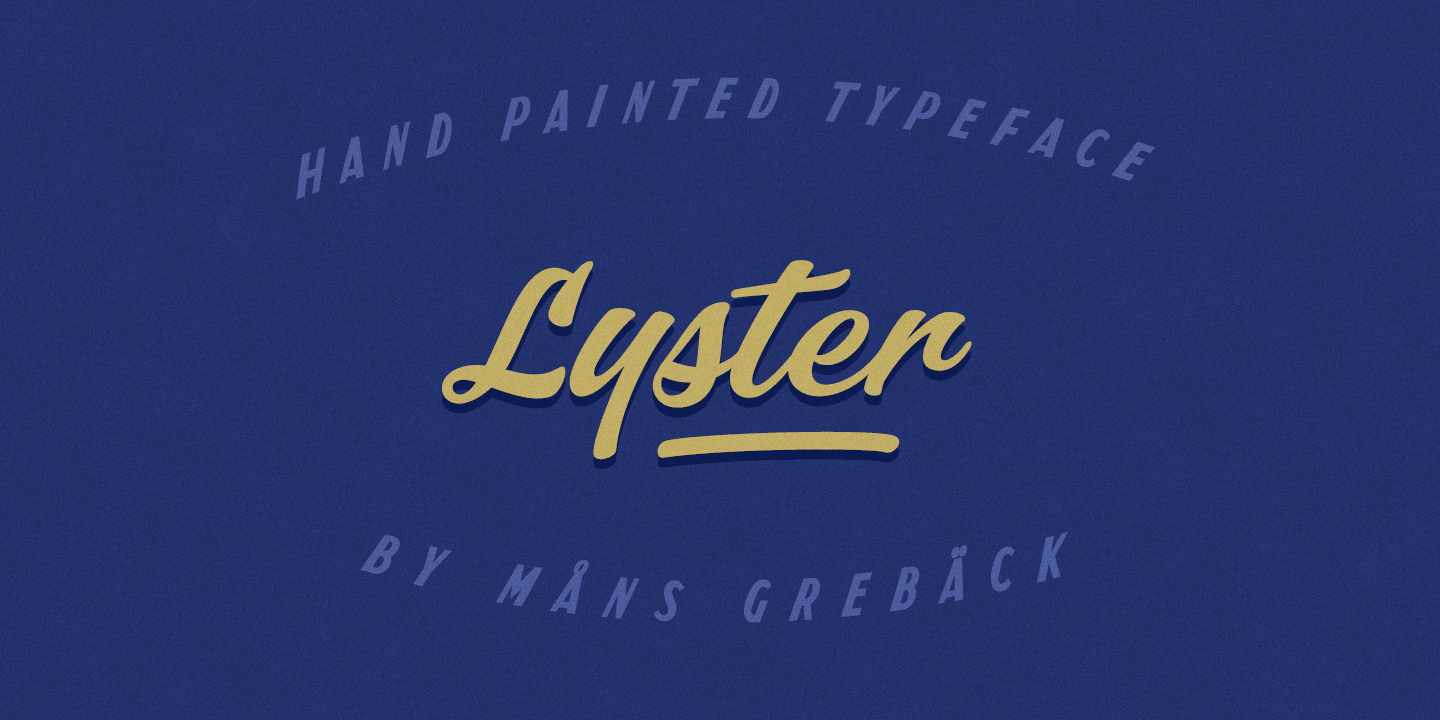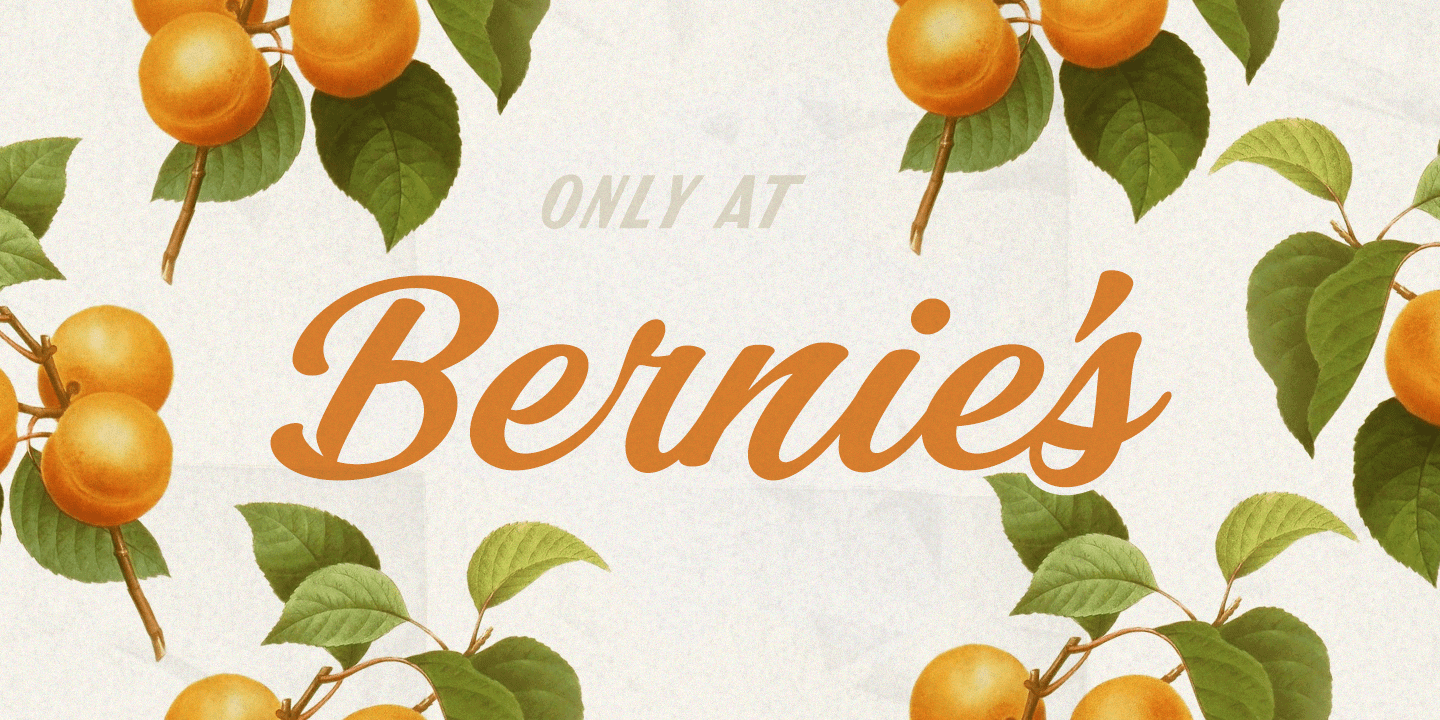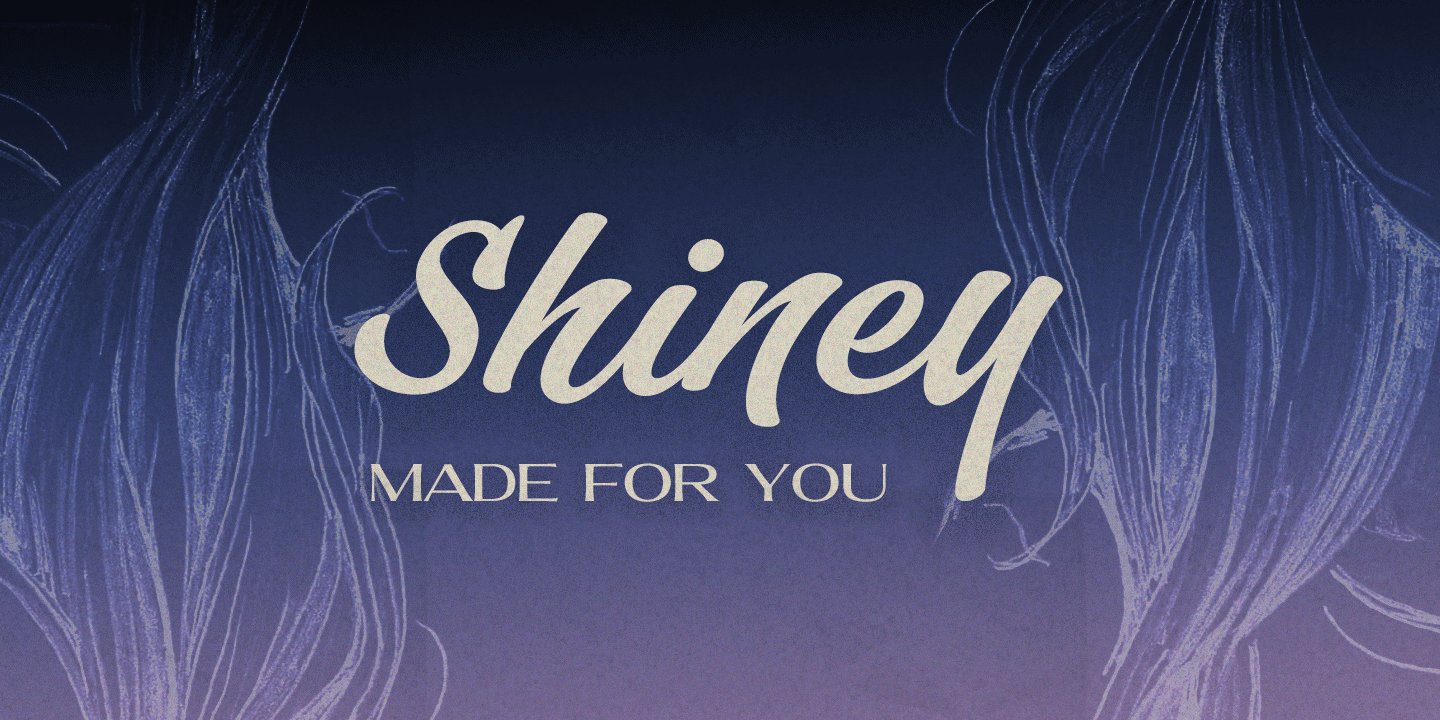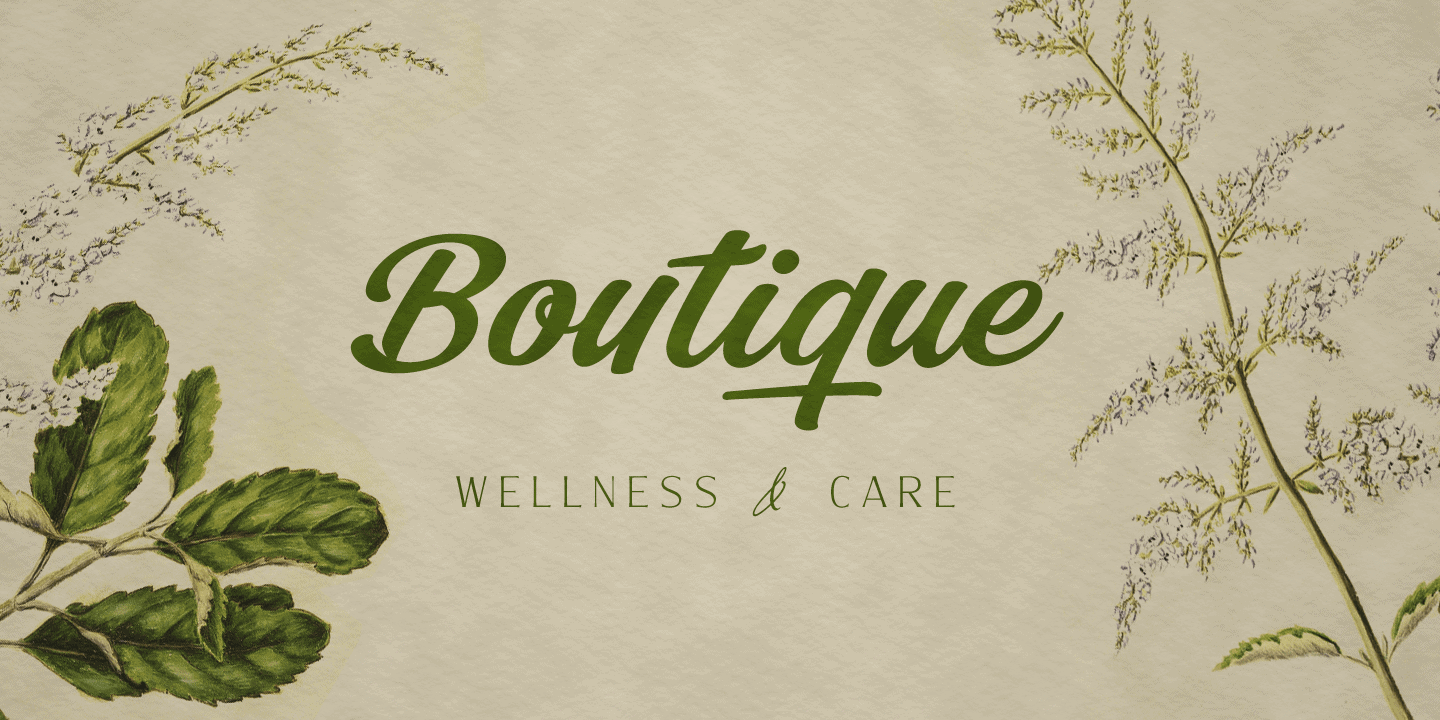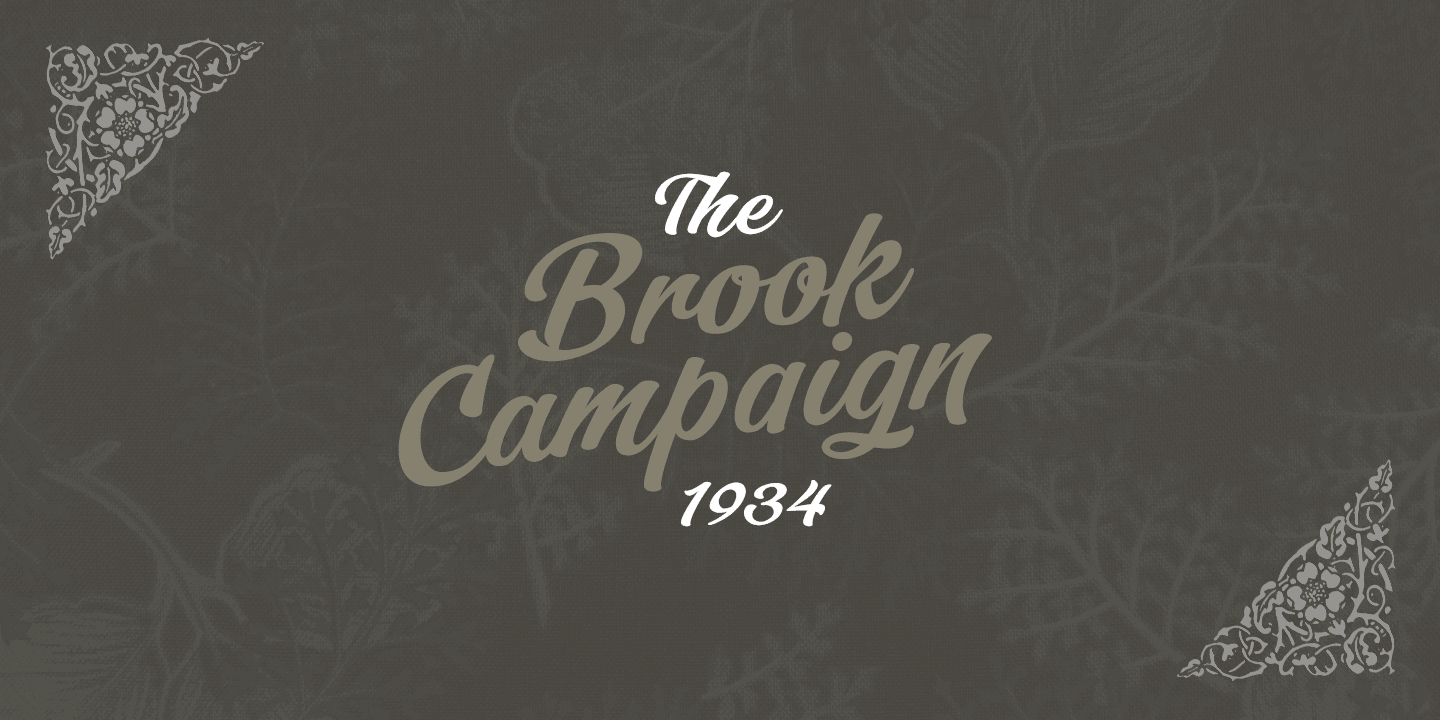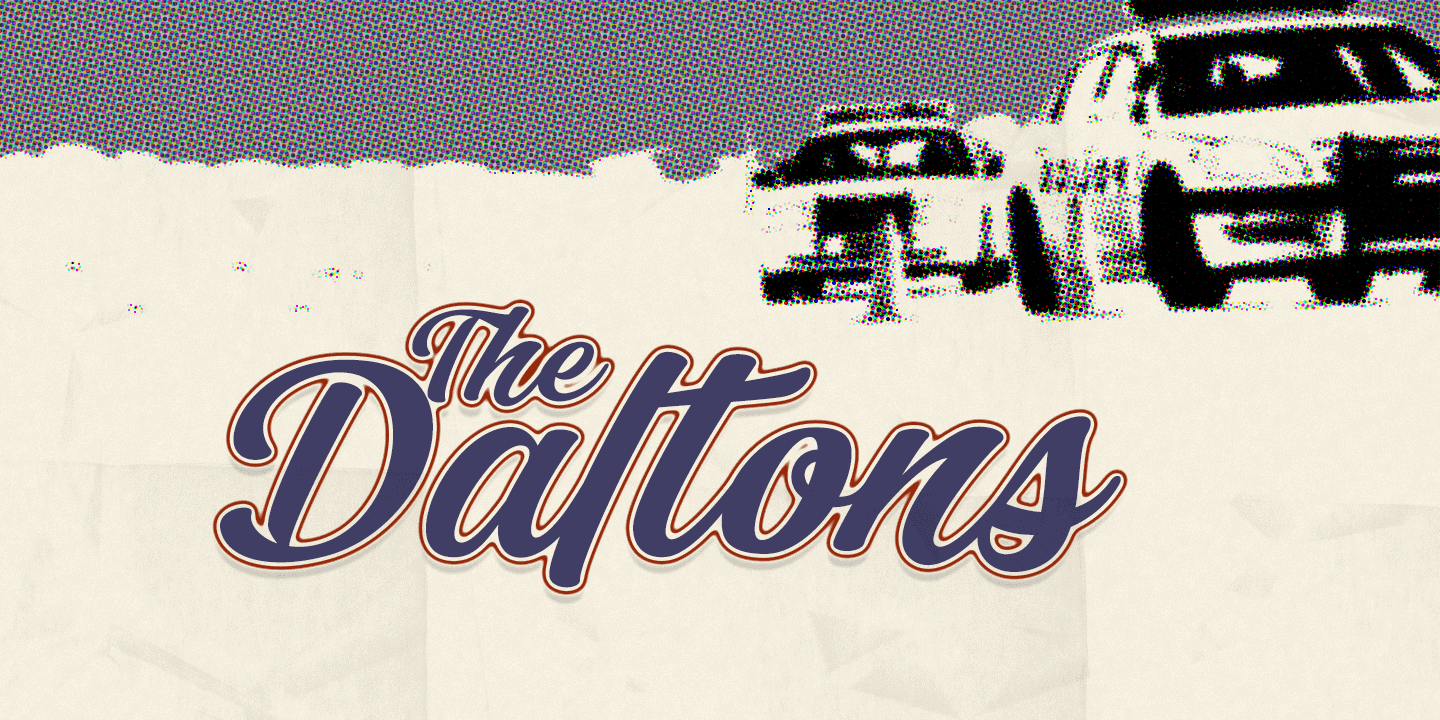
Lyster
Lyster is a hand-painted script typeface, built and created by Måns Grebäck in 2020.
Its brush strokes makes the typeface the ultimate blend between modern and classic. The balanced weight and tilt result in velocity, flow and a friendly but energetic vibe.
The font contains all characters you’ll ever need, including all punctuation and numbers.